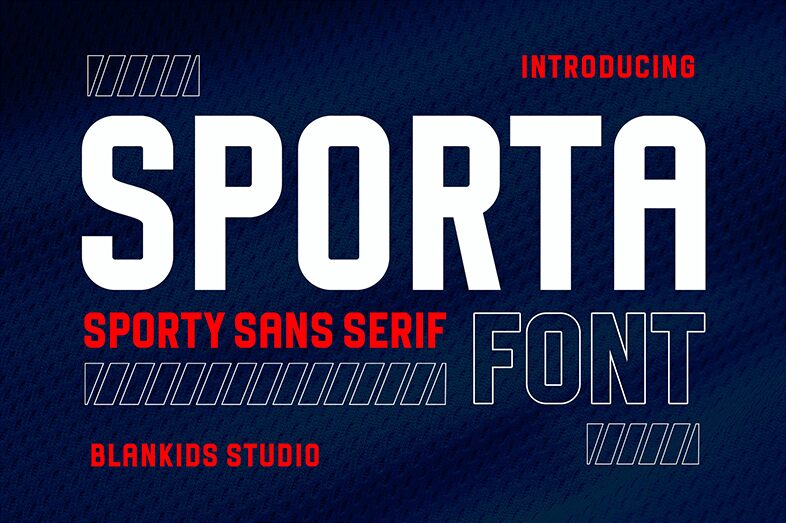
Sporta Regular
Sporta font by Blankids is a dynamic sans serif that stands out with its uniquely condensed style. Its bold and assertive characters are perfect for creating striking headlines and eye-catching logos. The visual appeal of Sporta lies in its clean lines and modern aesthetics, making it ideal for both digital and print media.
This free font is not only versatile but also highly functional in various design contexts, from sports branding to contemporary editorial layouts. With Sporta, you can ensure your message is delivered with clarity and impact.